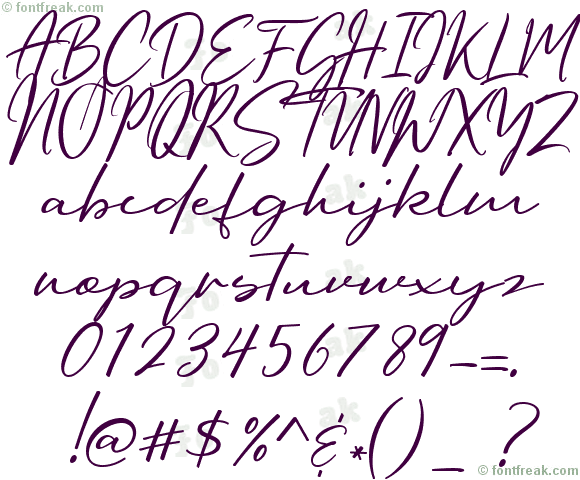
OriflameScript
About OriflameScript
OriflameScript is a captivating script font designed by 50Fox Studio, classified as a handwritten typeface that exudes elegance and charm. With its fluid strokes and graceful curves, this font showcases a medium stroke weight that strikes a perfect balance between legibility and artistic flair. The gentle contrast in letterforms, combined with its slightly loose spacing, allows for a natural handwritten feel, making it ideal for a variety of creative projects.
This font shines in applications that require a personal touch. It is particularly well-suited for wedding invitations, where its romantic aesthetic can beautifully convey heartfelt sentiments. Additionally, OriflameScript is perfect for crafting stylish greeting cards and personalized stationery, adding an elegant flair to any message. Its unique character makes it a great choice for restaurant menus, enhancing the overall dining experience with a touch of sophistication. Furthermore, content creators will find this font invaluable for social media graphics and branding, as it adds an inviting and warm atmosphere to their visual content.
Targeting graphic designers, small business owners, and content creators, OriflameScript offers an opportunity to elevate their projects with a distinctive typographic style. The font's versatility allows it to adapt to various design needs, making it a valuable addition to any creative toolkit.
What sets OriflameScript apart is its ability to blend elegance with approachability. The fluidity of its strokes and the warmth of its design create a sense of familiarity, inviting viewers to engage with the content. For those looking to enhance their projects with a unique typographic style, the OriflameScript font free download provides an excellent opportunity to explore its potential and incorporate its charm into their designs.